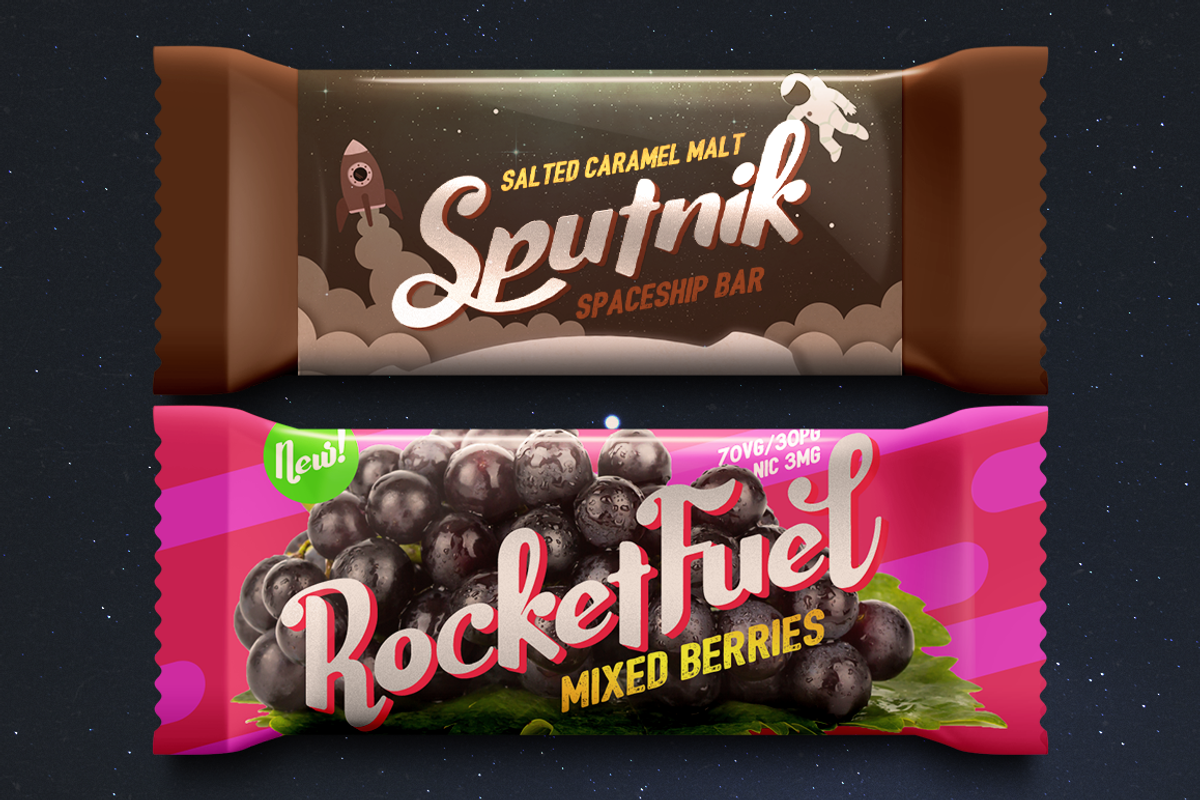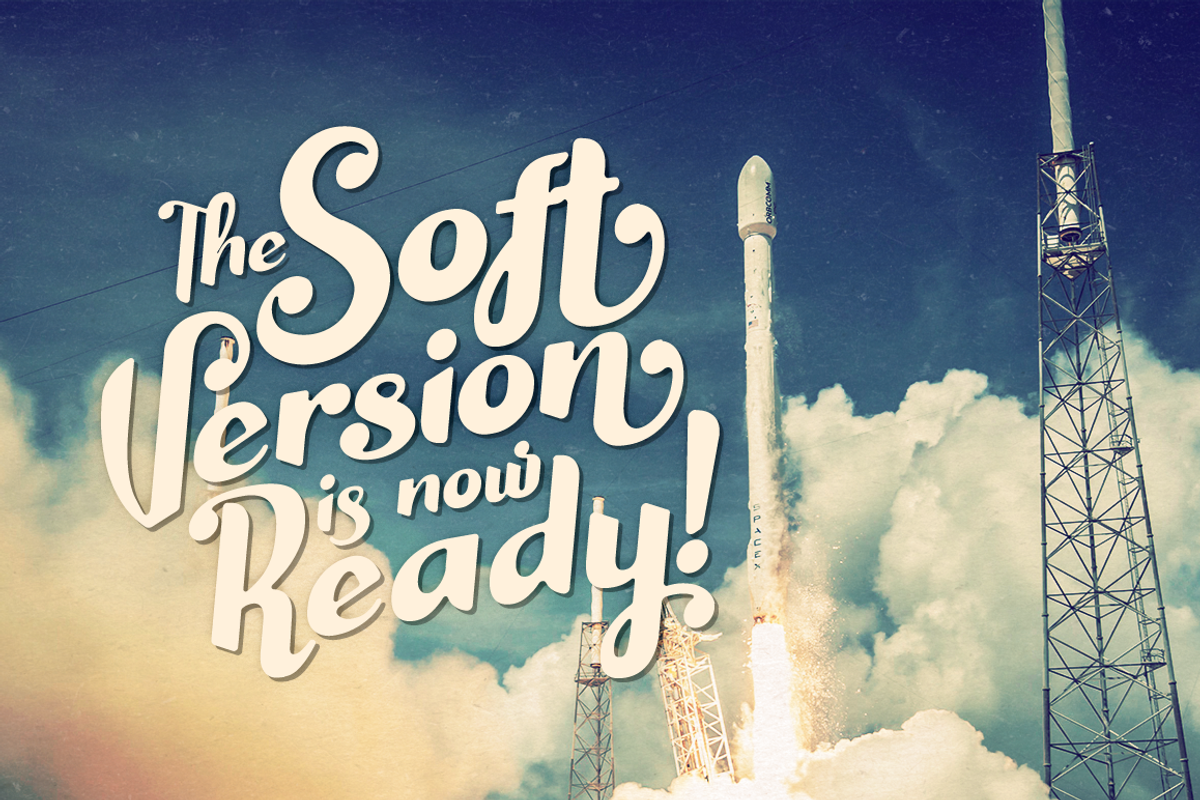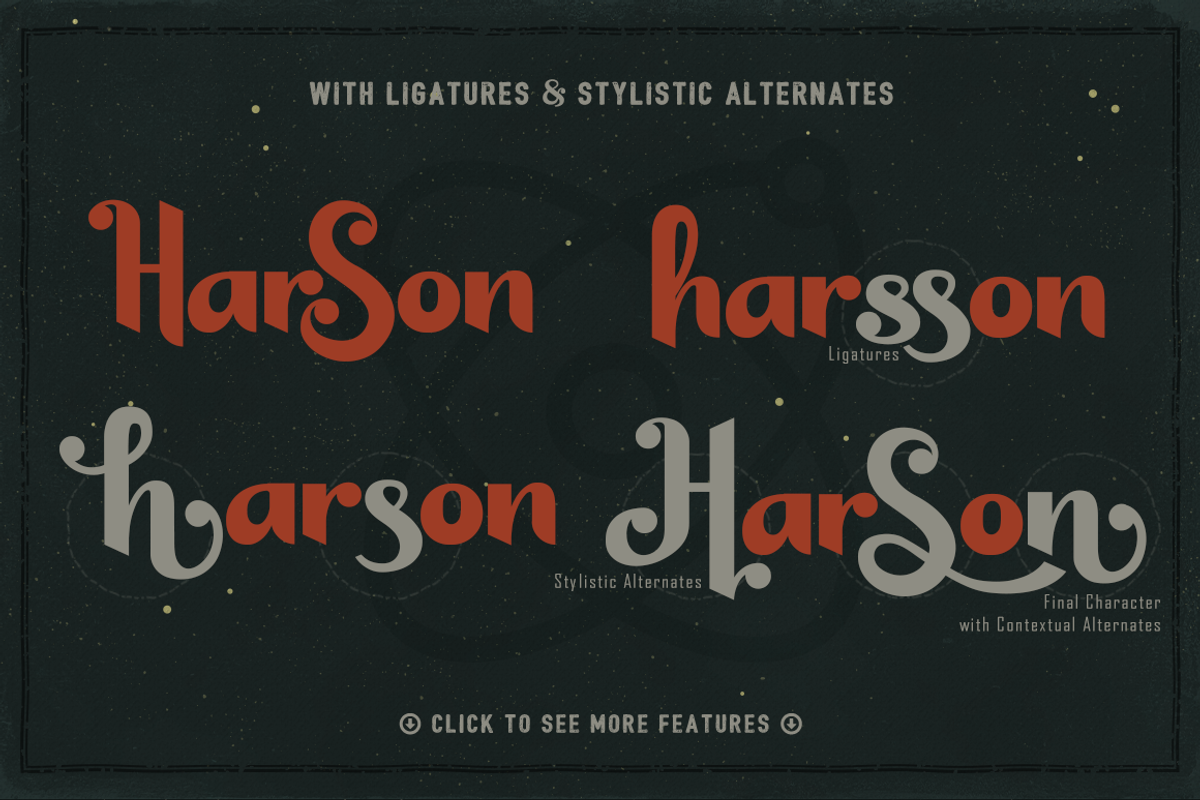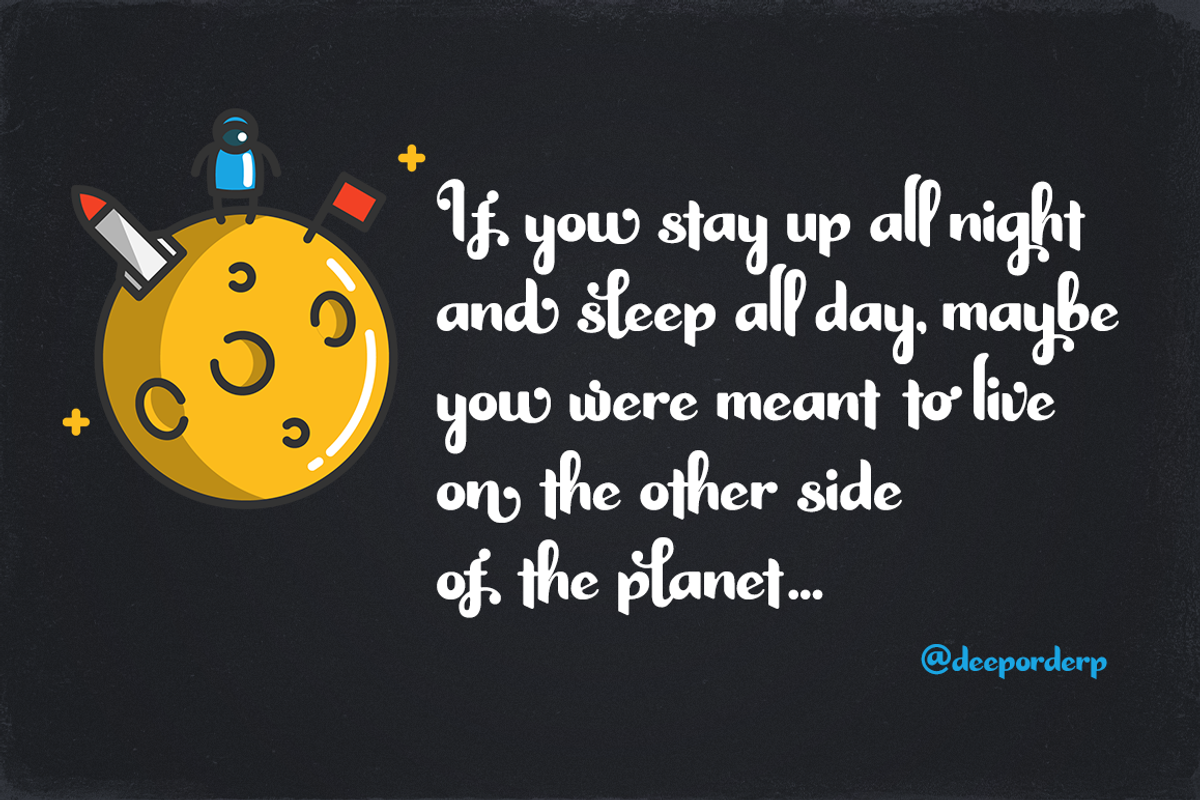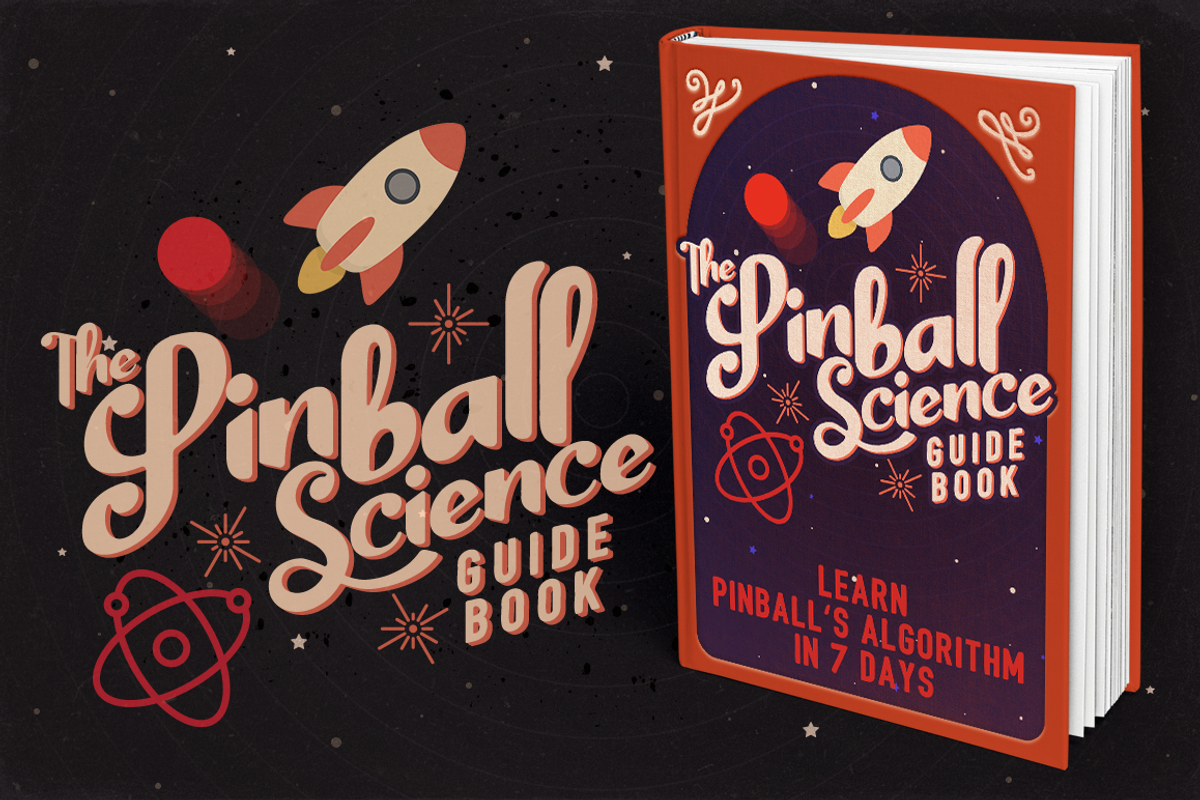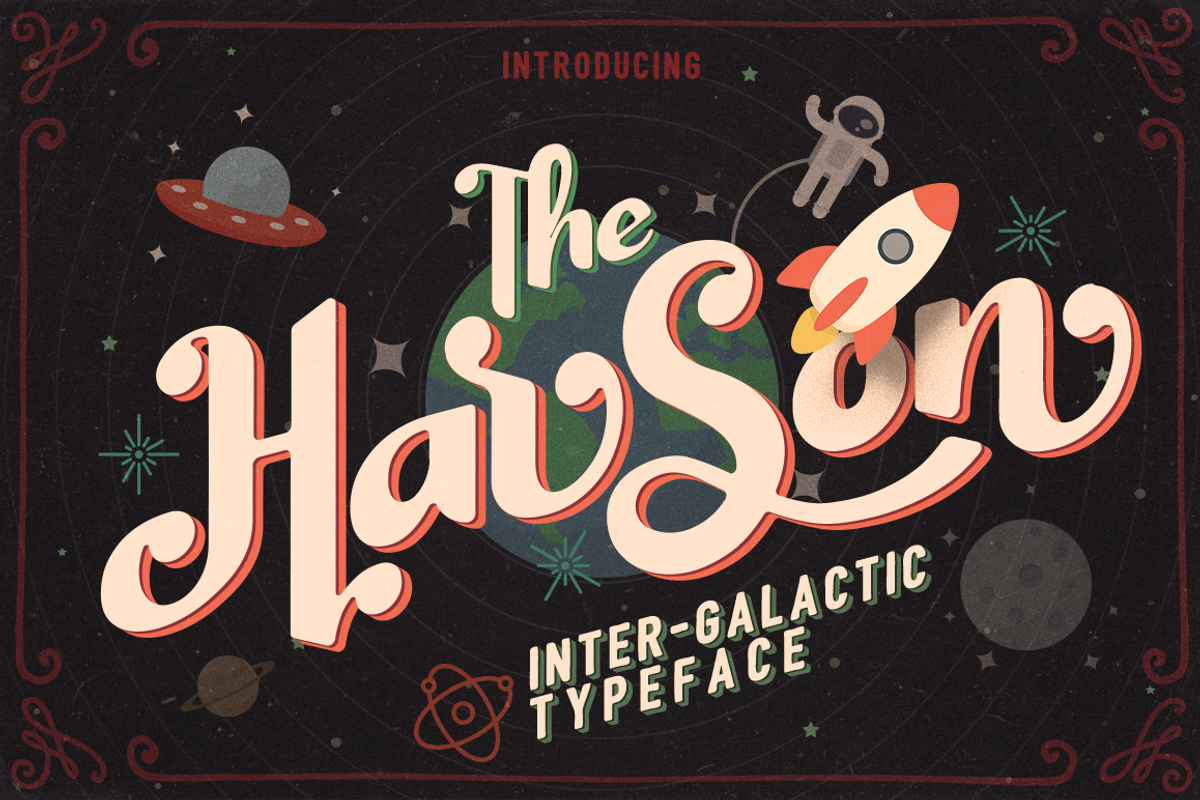
Harson Inter-Galactic Typeface
Harson Inter-Galactic Typeface by Weirdsgn Store is a font selected for branding, posters, packaging, typography.
- Harson comes with uppercase, lowercase, numerals, punctuations, currency symbols and many variations on each characters include opentype alt
- Also supported with Contextual Alternate so the alternate characters will generated automatically on every final character when typing a wor
- Standard characters set (uppercase, lowercase, numerals, punctuations, and currency symbols).
- Multilangual (Accented characters available).
- Uppercase Alternates (best used as opening character).
- Lowercase Alternates (best used as final character).
- Harson Regular
- Harson Italic
- Harson Soft
- Harson Soft Italic
Why Harson Inter-Galactic Typeface is worth a look
Harson Inter-Galactic Typeface by Weirdsgn Store fits naturally into Branding, posters, packaging, typography.